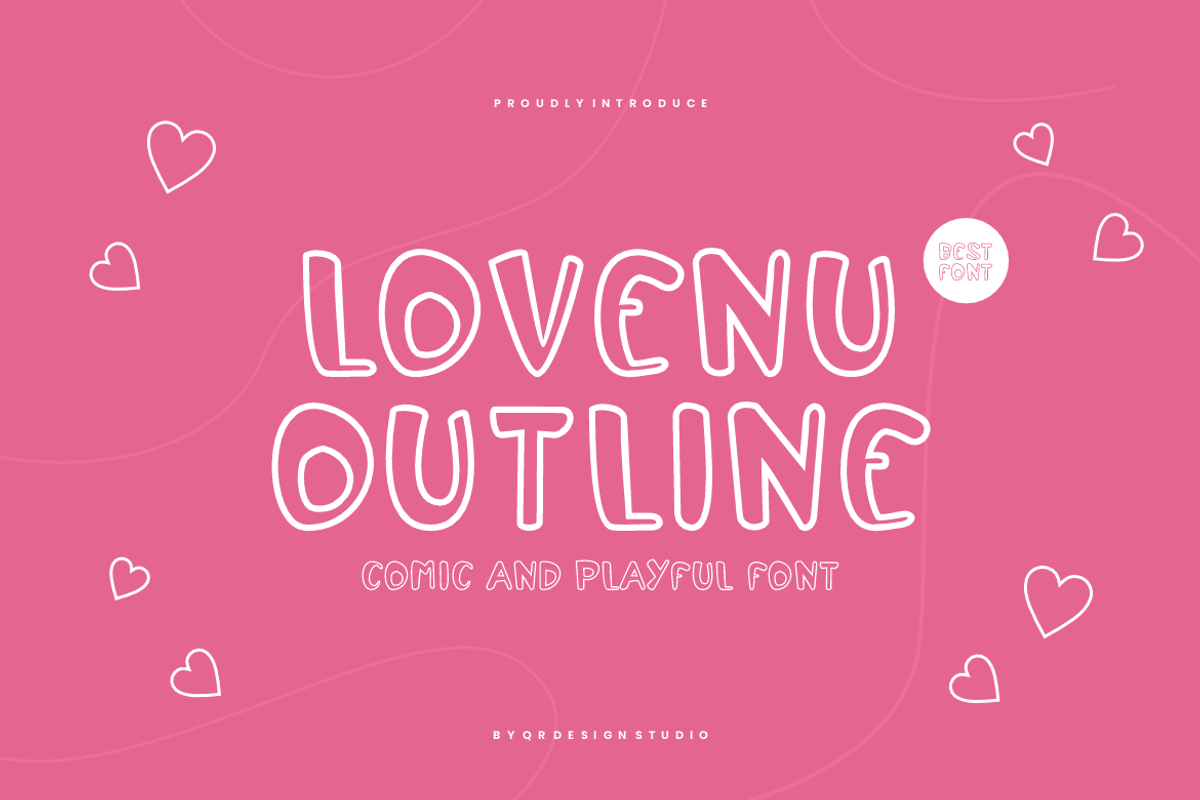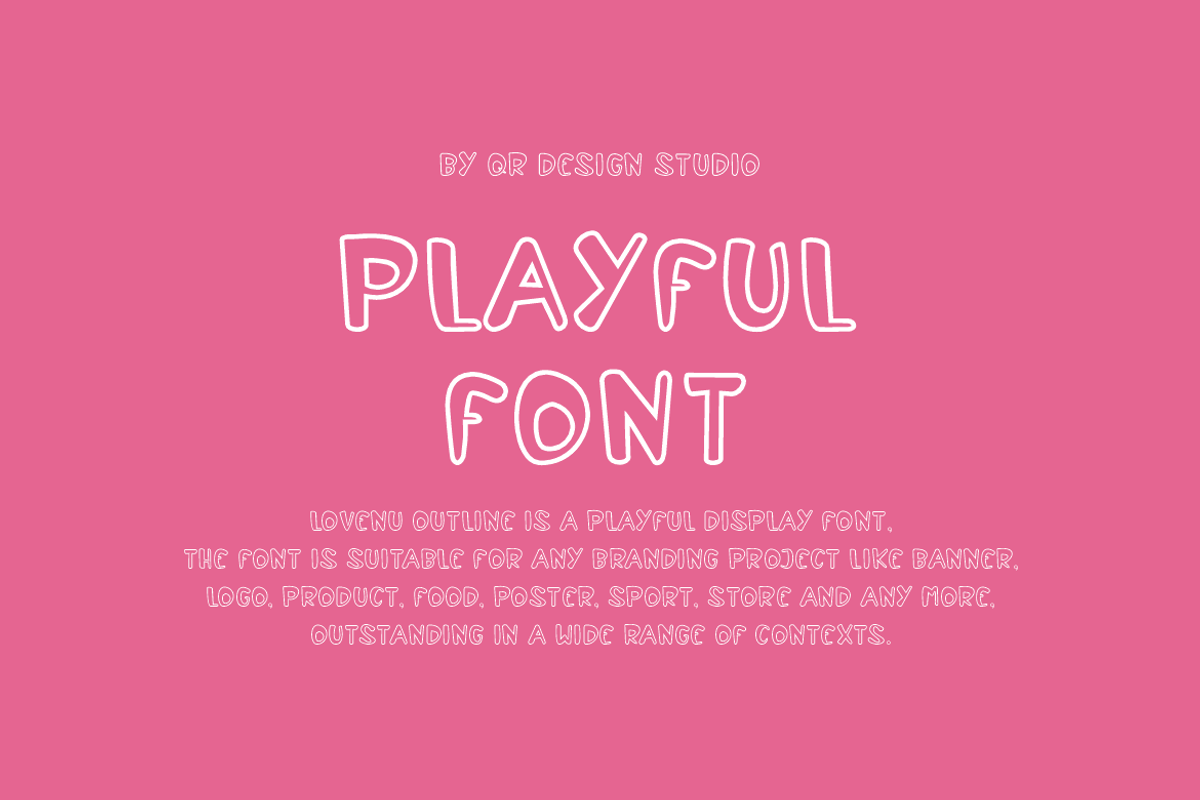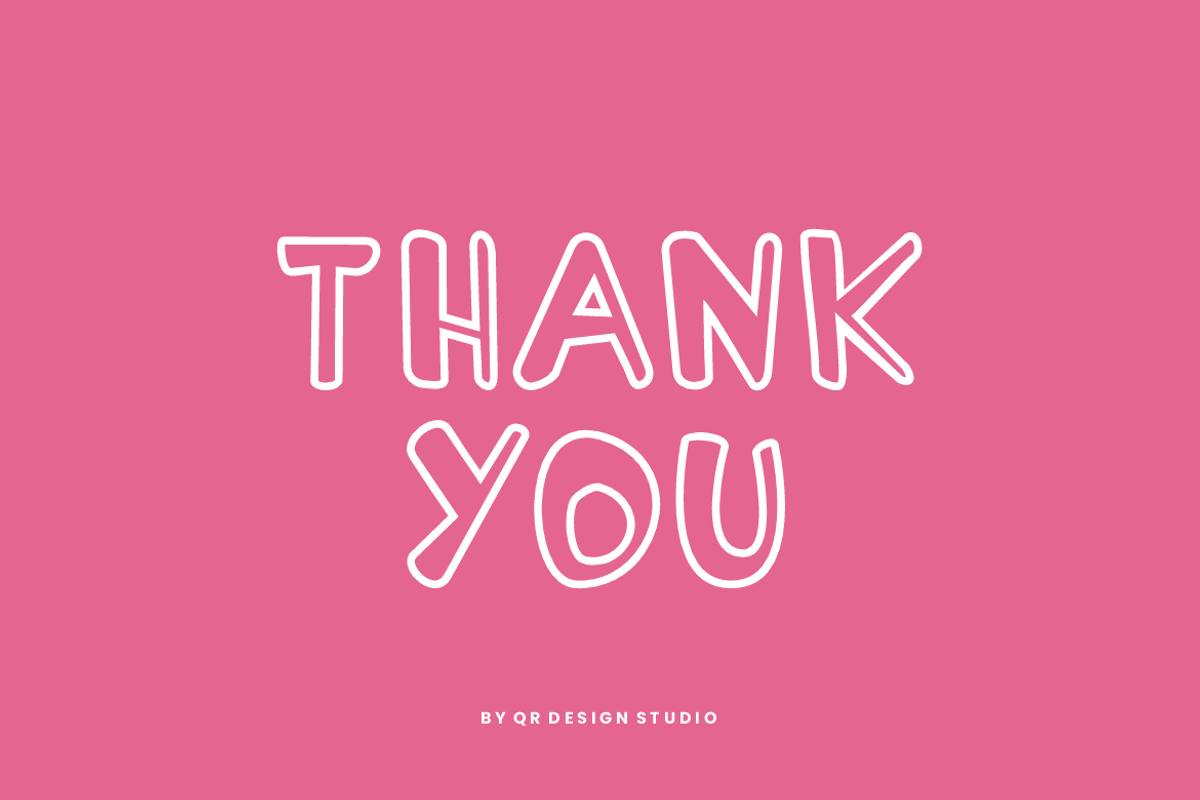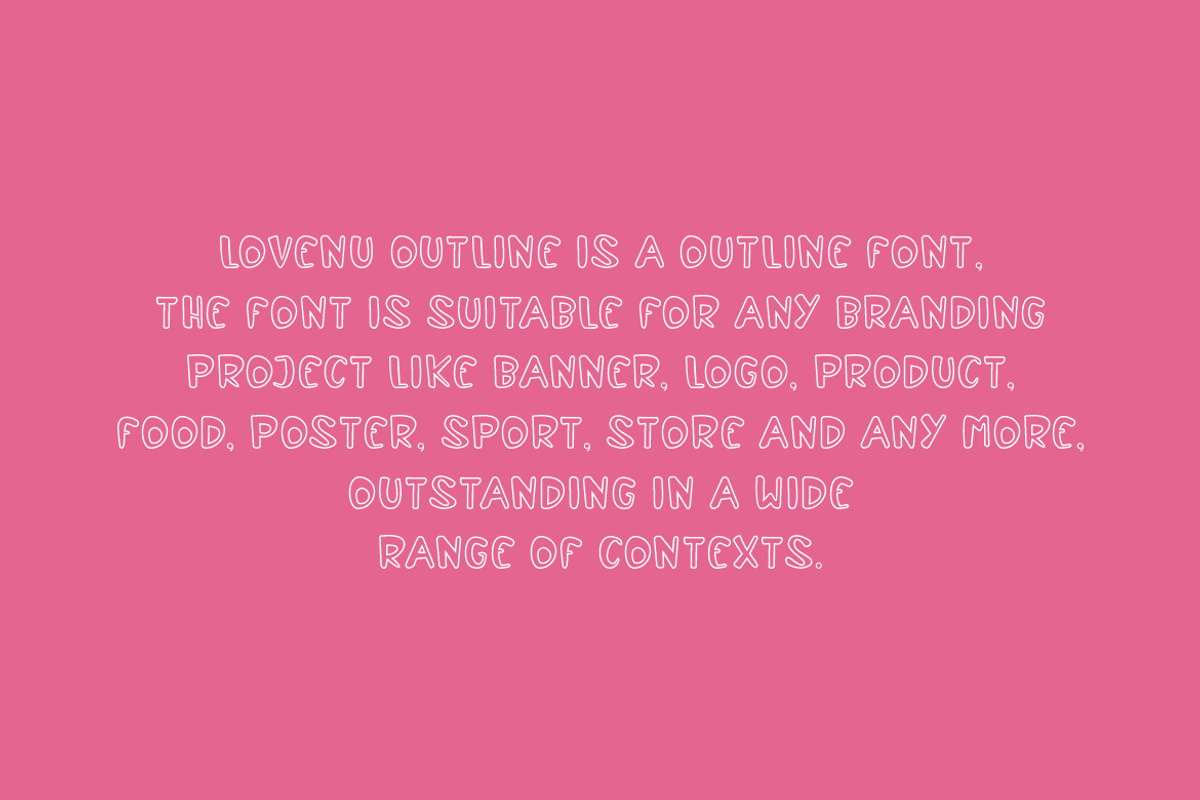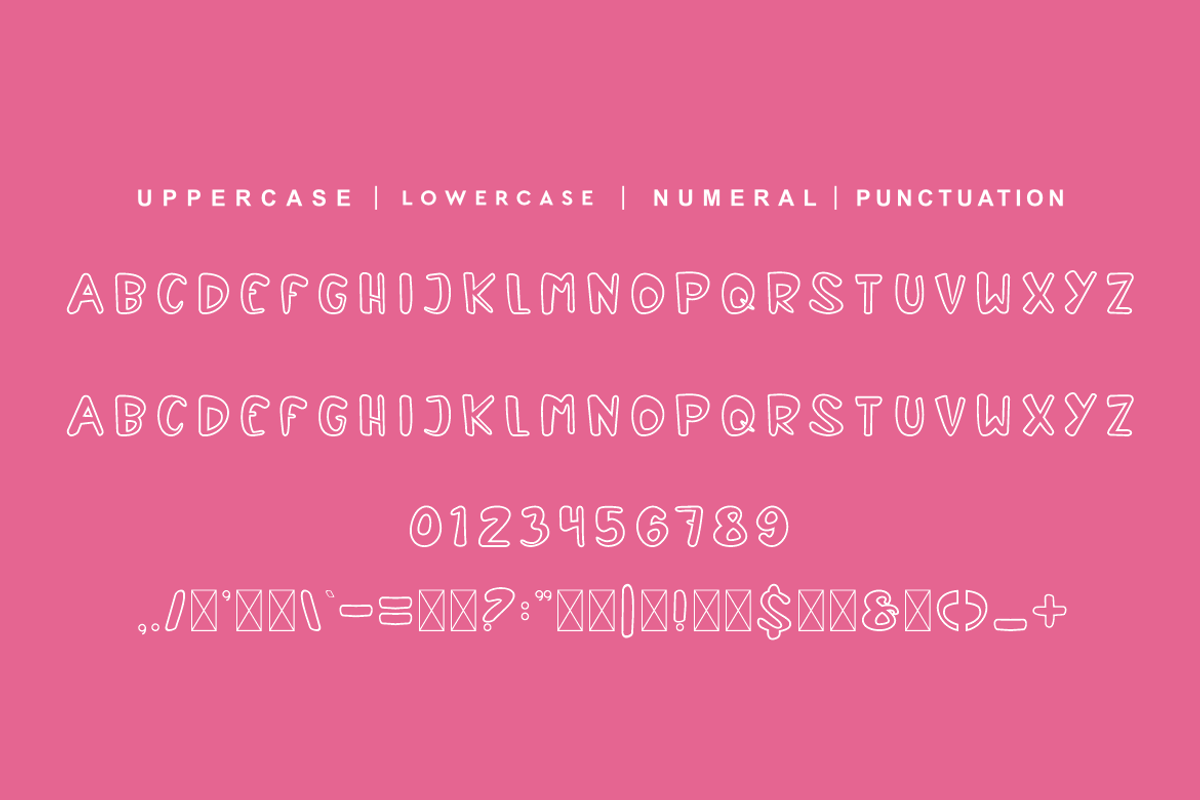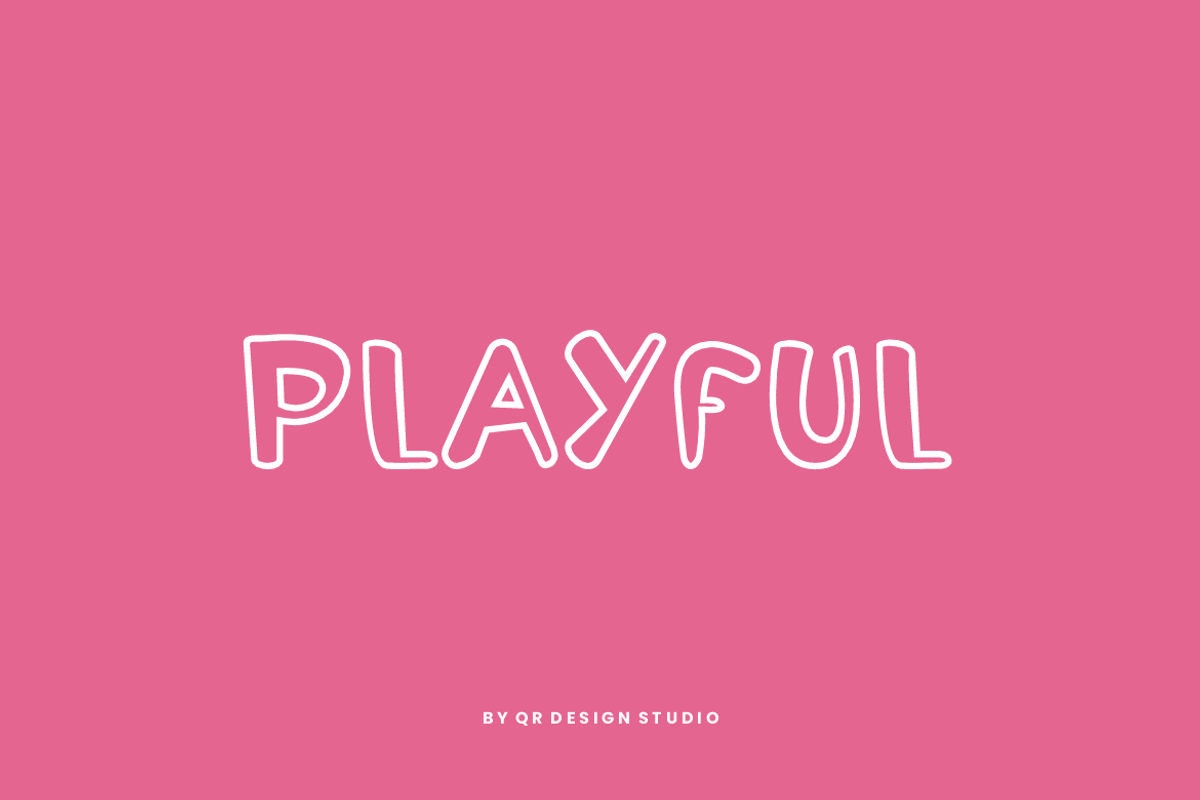
Lovenu Outline - Love & Outline Font
Lovenu Outline Font is a playful and authentic display font. The font is suitable for any branding project like poster, logo, sport, and many more. Outstanding in a wide range of contexts.